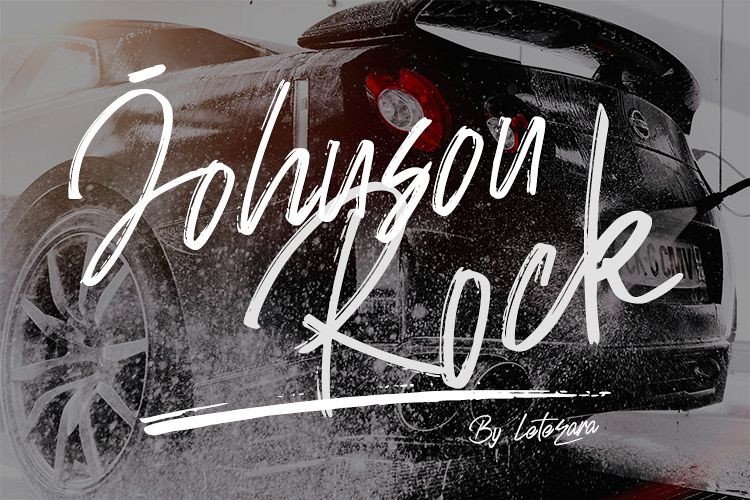
Johnson Rock Brush Font
Johnson Rock Font – This is a modern handbrush font. A casual, spontaneous brushy script. Used to give an authentic hand lettered look to your project. It’s designed and shared by letterara. Johnson Rock Brush is cool handwritten type with a personal charm. With quick dry strokes and a signature style, Johnson Rock is perfect for branding projects, homeware designs, product packaging – or simply as a stylish text overlay to any background image.